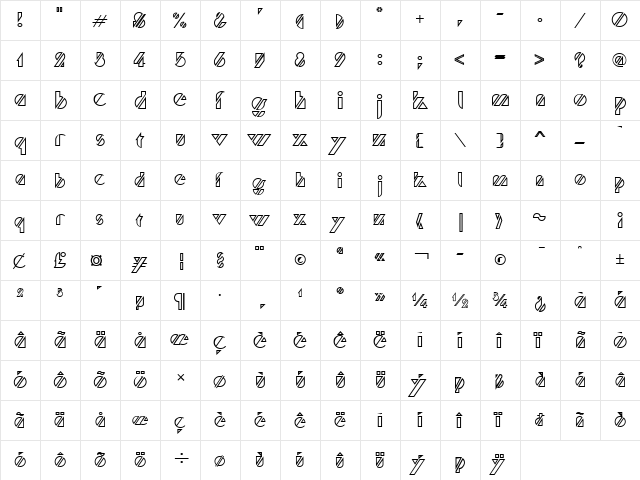
Cane Hollow Normal
Design Context for Cane Hollow Typeface
Cane Hollow is a composed and adaptable typeface that performs quietly and consistently across a wide range of design contexts.